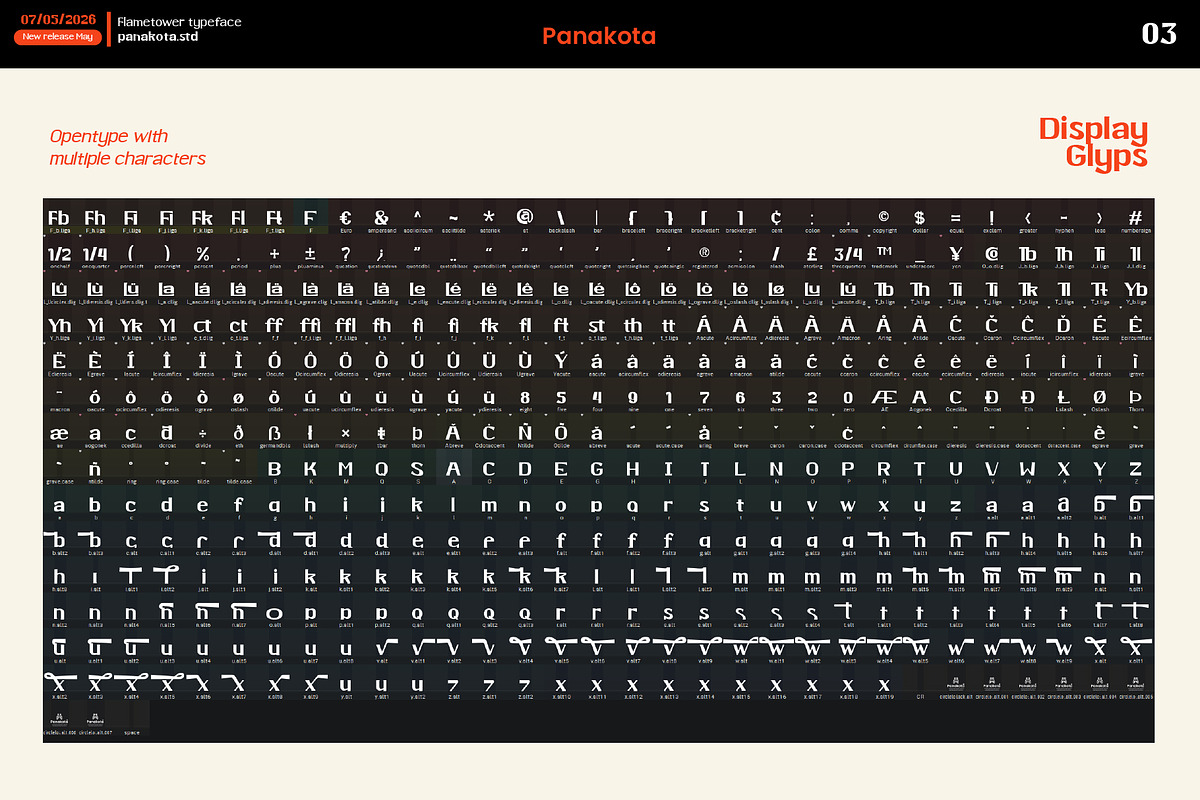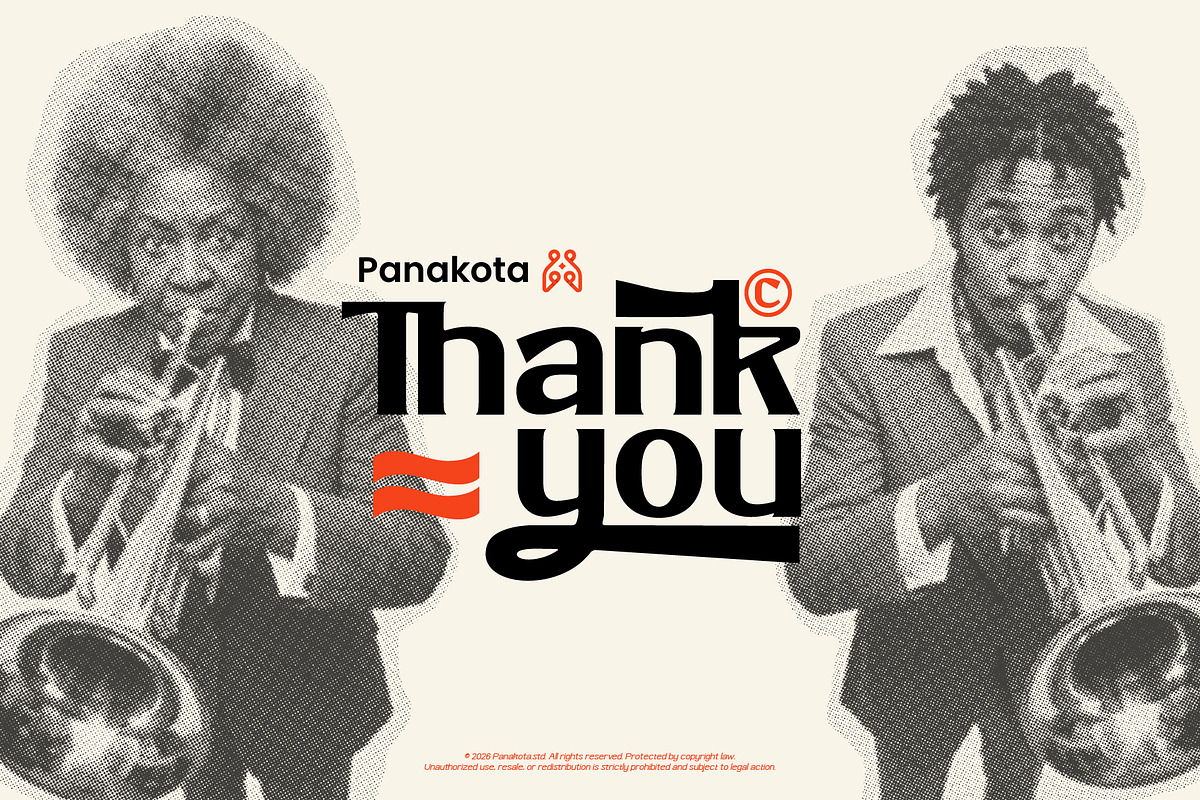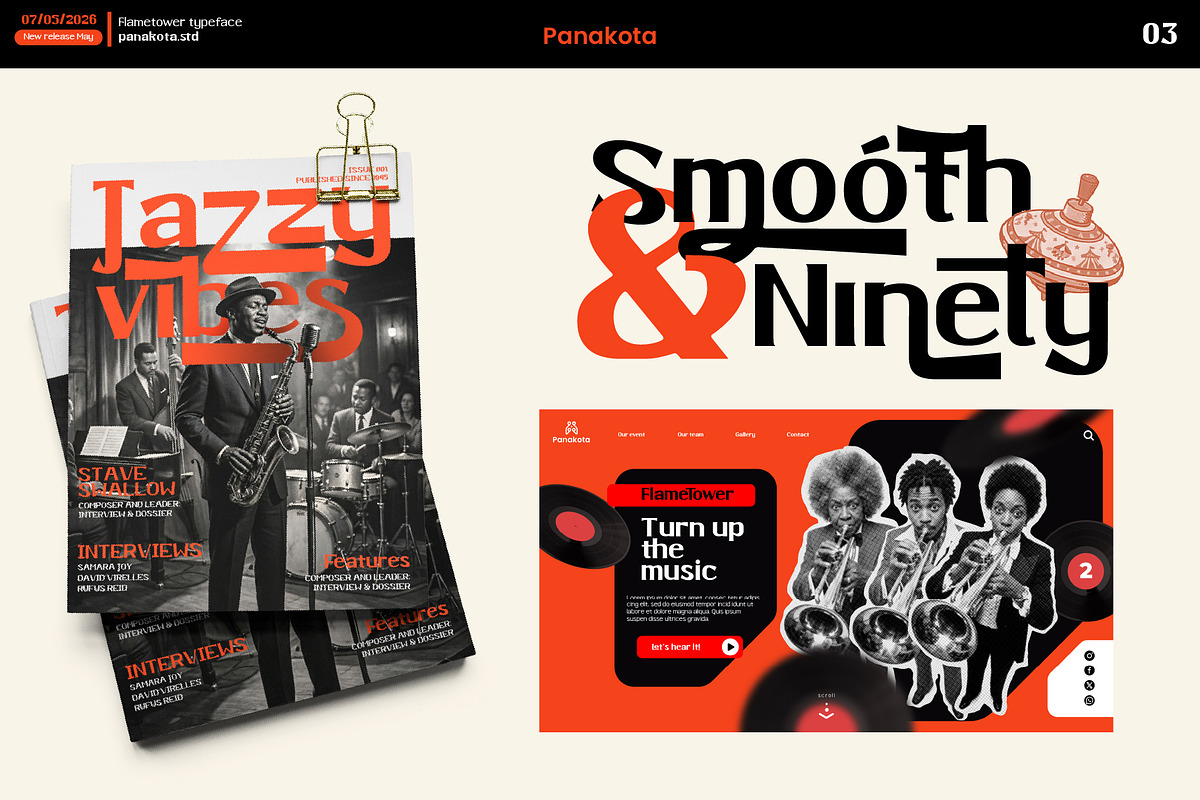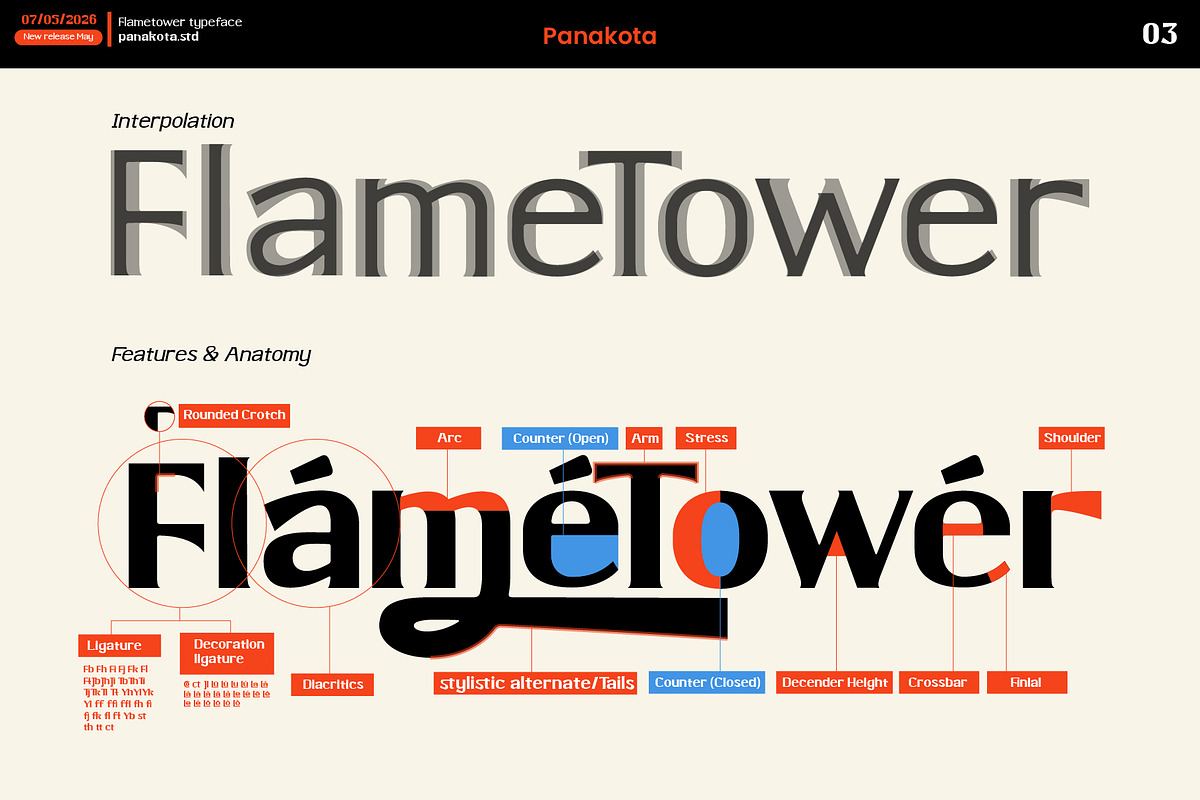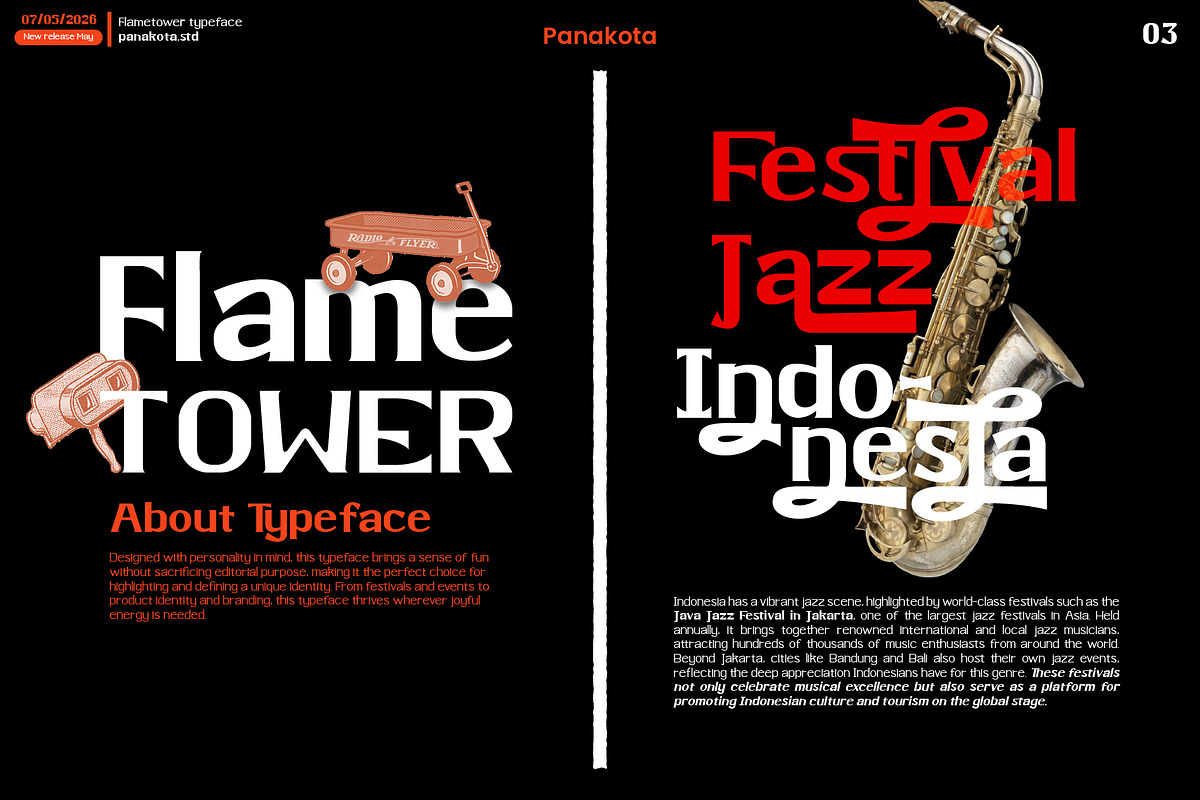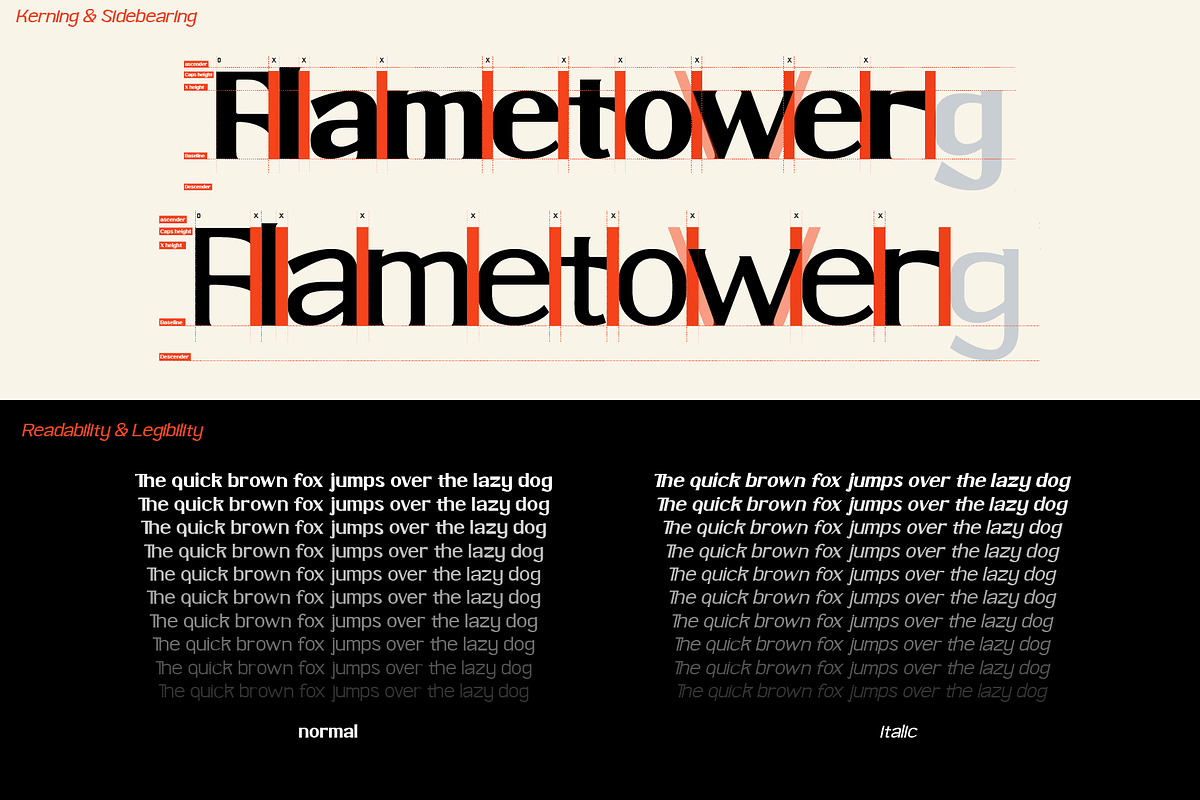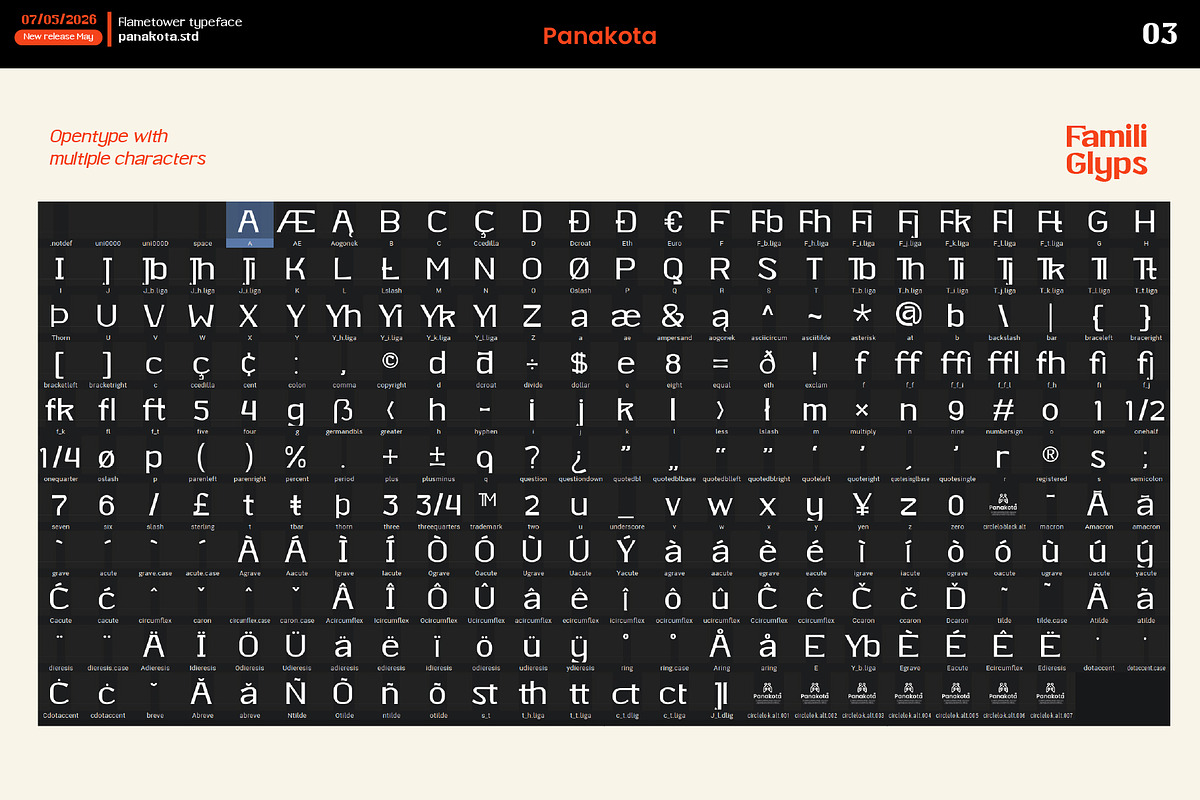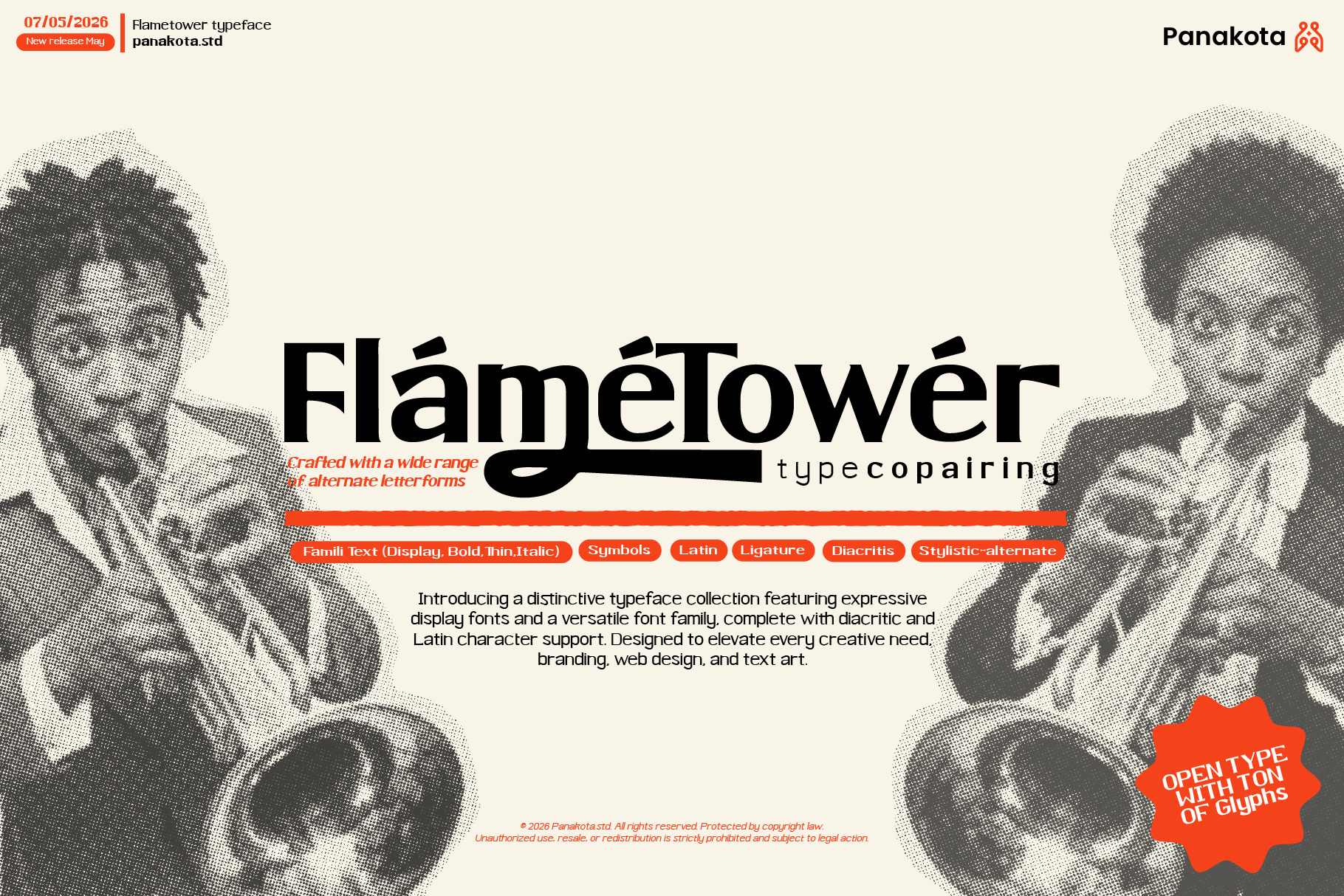
FLAMETOWER FAMILY TYPEFACE & DISPLAY
Introducing FLAMETOWER by panakota.std
Designed with personality in mind, this display typeface is packed with joyful energy without sacrificing editorial purpose. Built for brands that dare to stand out — from festivals and events to product identity and branding, this font thrives wherever a unique identity is needed.
Complete with :
Family features
Glyphs alternate styles
Standard ligatures
Decorative ligatures
Critics & display ready
OpenType Features
Flametower the perfect choice for highlighting your brand identity